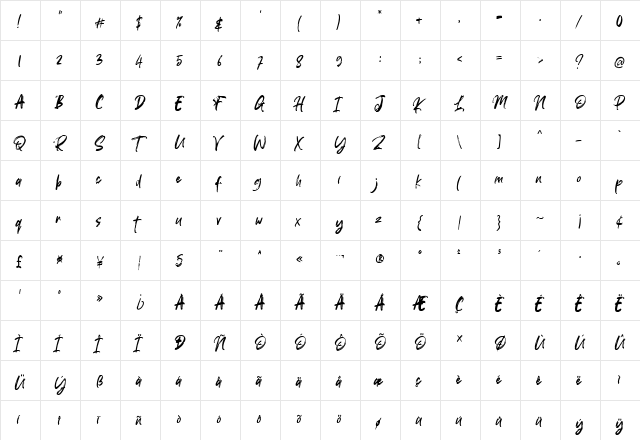
Roulette Regular
DesignerWahyu Andi Prasetiyo
Design Context for Roulette Typeface
Roulette is a composed and adaptable typeface that performs quietly and consistently across a wide range of design contexts.
Pro Tip: Pair Roulette with a font of contrasting weight or personality to build a more expressive typographic hierarchy.